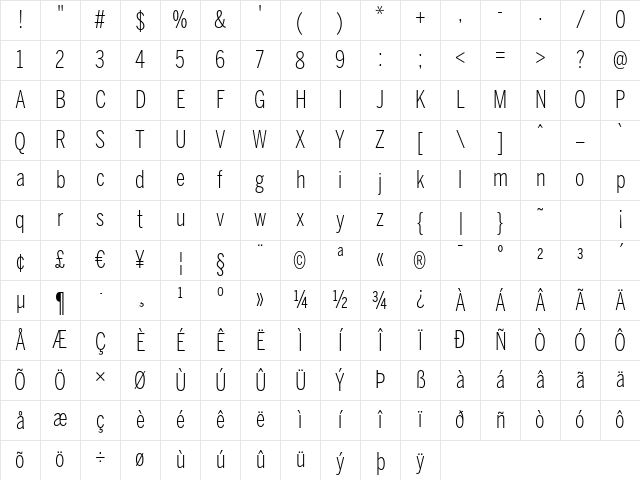
BentonSans Comp Light is a composed and adaptable typeface that performs quietly and consistently across a wide range of design contexts. Its slender proportions lend an understated elegance to any composition.